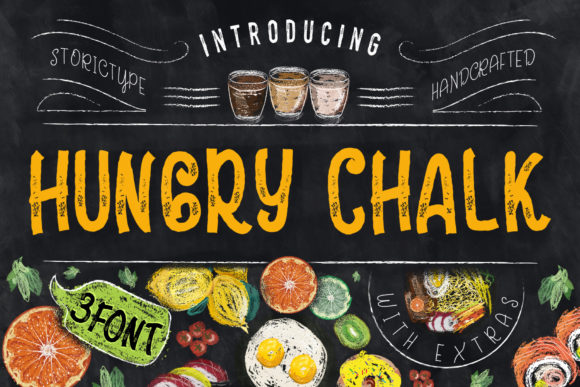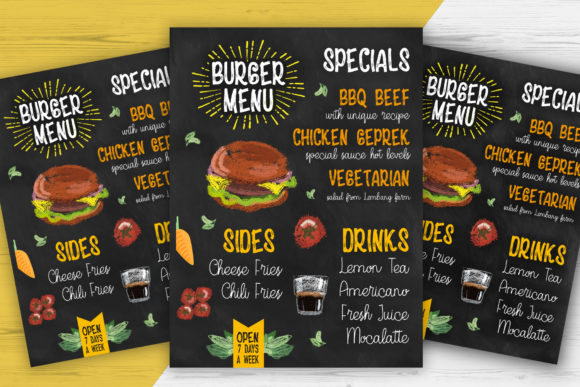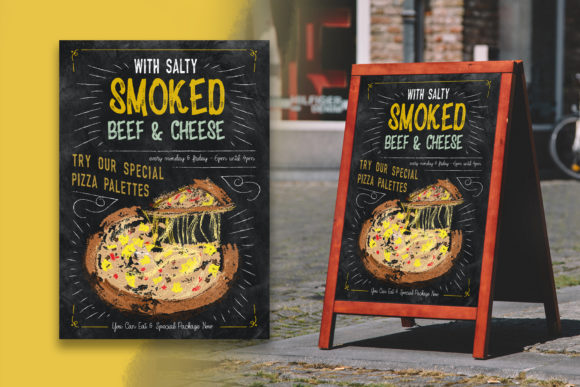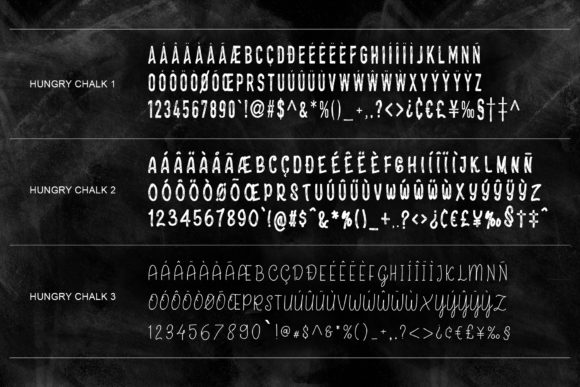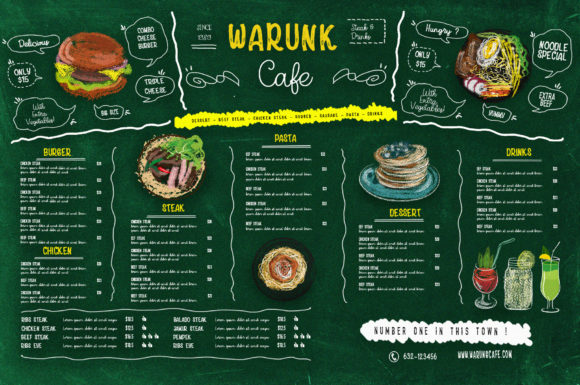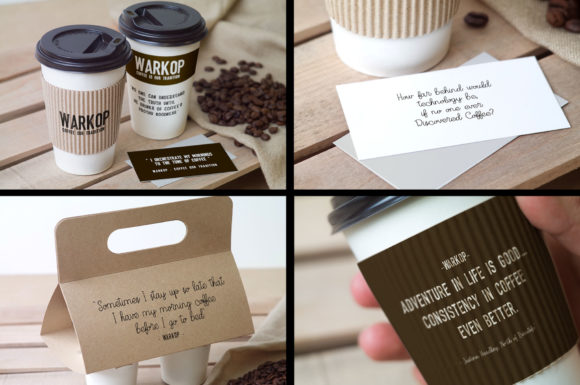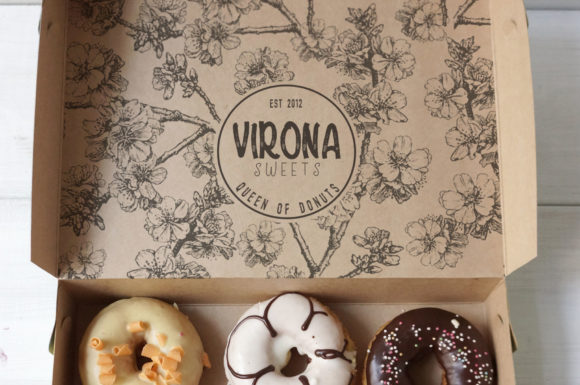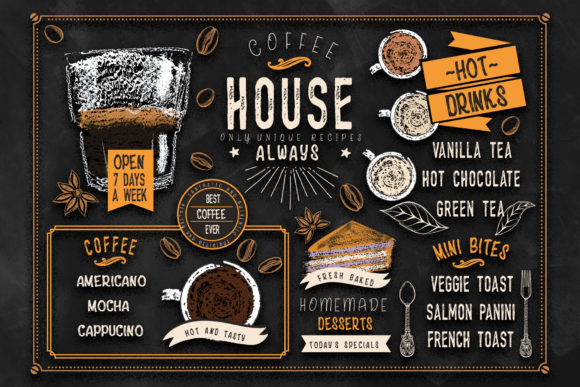
Hungry Chalk Font
About Hungry Chalk Font
The Hungry Chalk is a striking script font. It comes in three styles, which makes it perfect for creating multiple unique designs.
It can be used for various purposes, such as; logos, posters, restaurants and cafe’s, chalk designs, and much more!